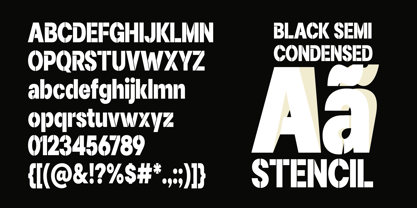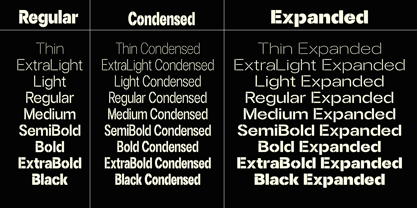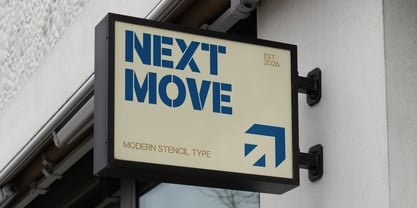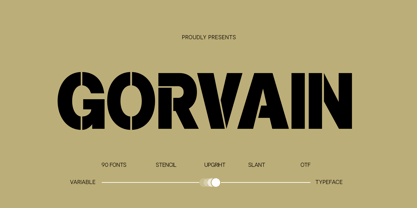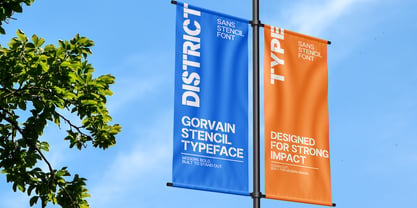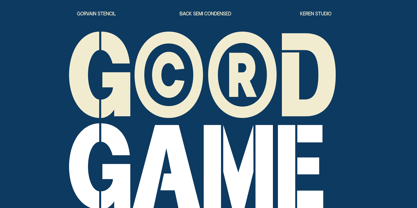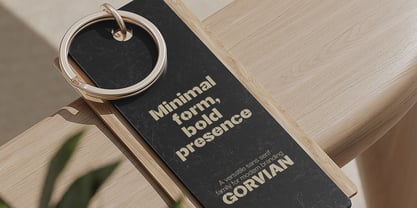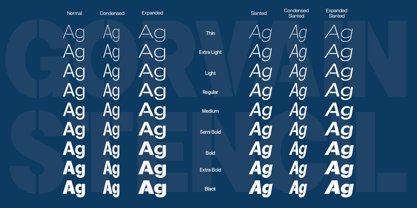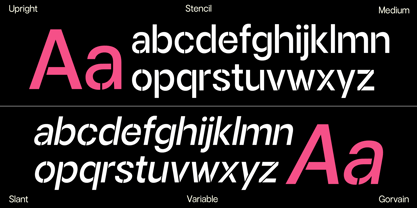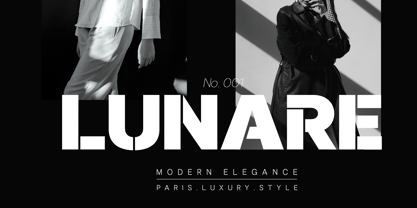
Gorvain Stencil
by Keren Studio
The Gorvain Stencil Font Family was designed by Cut Nurul Hadia and published by Keren Studio. Gorvain Stencil contains 91 styles and family package options. More about this family
GORVAIN STENCIL
Gorvain Stencil is a modern industrial stencil typeface designed to deliver bold visual impact with maximum flexibility. Built with strong geometric forms, sharp stencil cuts, and a clean futuristic structure, this typeface is crafted for designers who need a powerful display font system across a wide range of creative applications.
Powered by a fully functional variable font system, Gorvain Stencil gives you precise control over Weight, Width, and Slant variations. The family spans from Thin to Black, with adjustable width styles ranging from Condensed to Expanded, allowing smooth transitions and dynamic typography compositions without losing its distinctive stencil identity.
The complete family includes 90 carefully crafted styles, combining multiple widths and slanted variations for exceptional versatility.
Designers: Cut Nurul Hadia
Foundry: Keren Studio